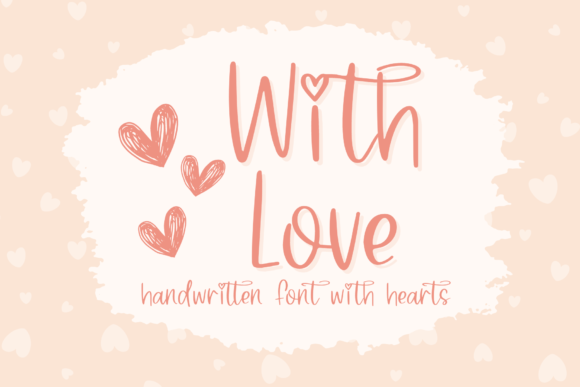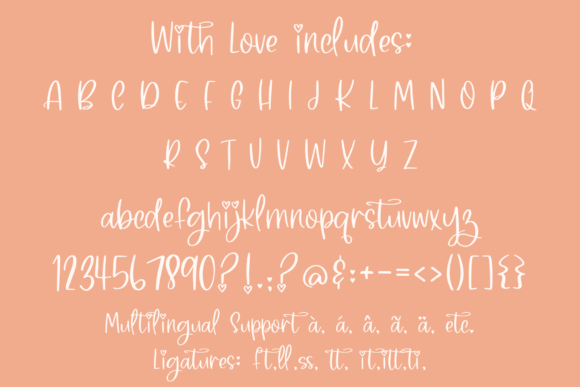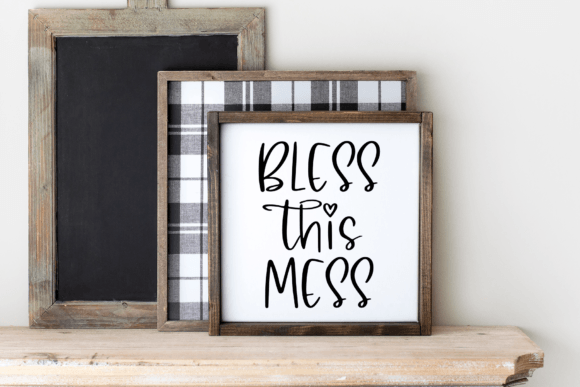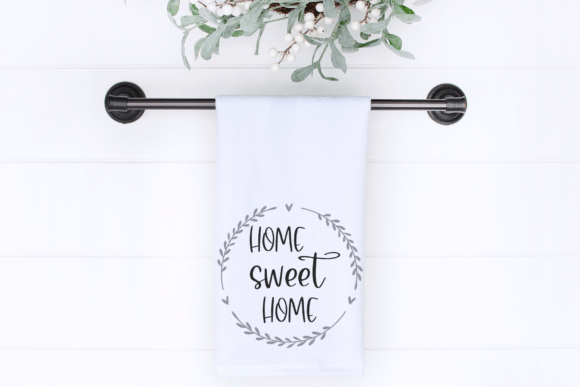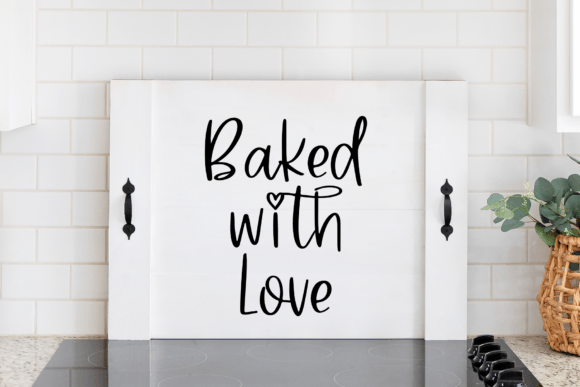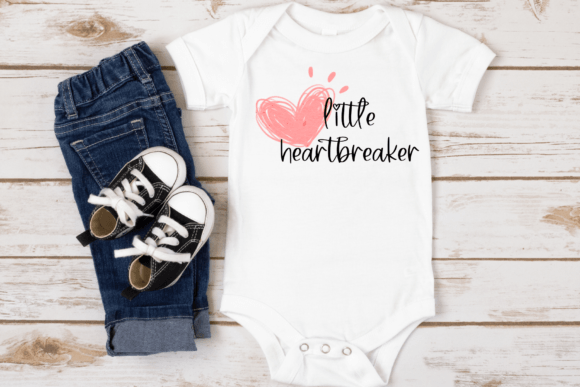
With Love Font
This cute handwritten font is perfect for fun Valentine’s Day decor, greeting cards, t-shirt designs, stickers, social media, and crafts. With Love is a cute handwriting font with hearts that will add an adorable and romantic touch to any design you wish to create!